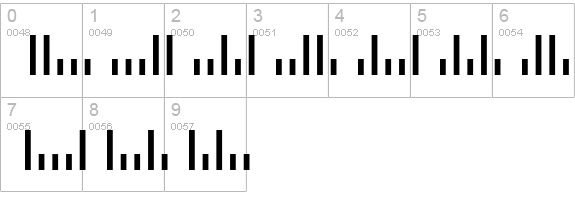
PostalBarCode Font Details
The PostalBarCode font is a sleek and modern typeface designed specifically for creating postal barcodes. Its clean lines and precise measurements make it ideal for generating professional-looking barcodes for all your mailing needs. This font is perfect for businesses, organizations, and individuals who require accurate and efficient barcode generation for their mailings. Best of all, the PostalBarCode font is available for free download at FontsMarket.com. Simply visit the website to access this useful font and start creating high-quality barcodes today. Whether you're sending out promotional materials, invoices, or packages, the PostalBarCode font will streamline your mailing process and ensure accurate delivery every time. Download it now and elevate your postal barcode designs with ease and precision.